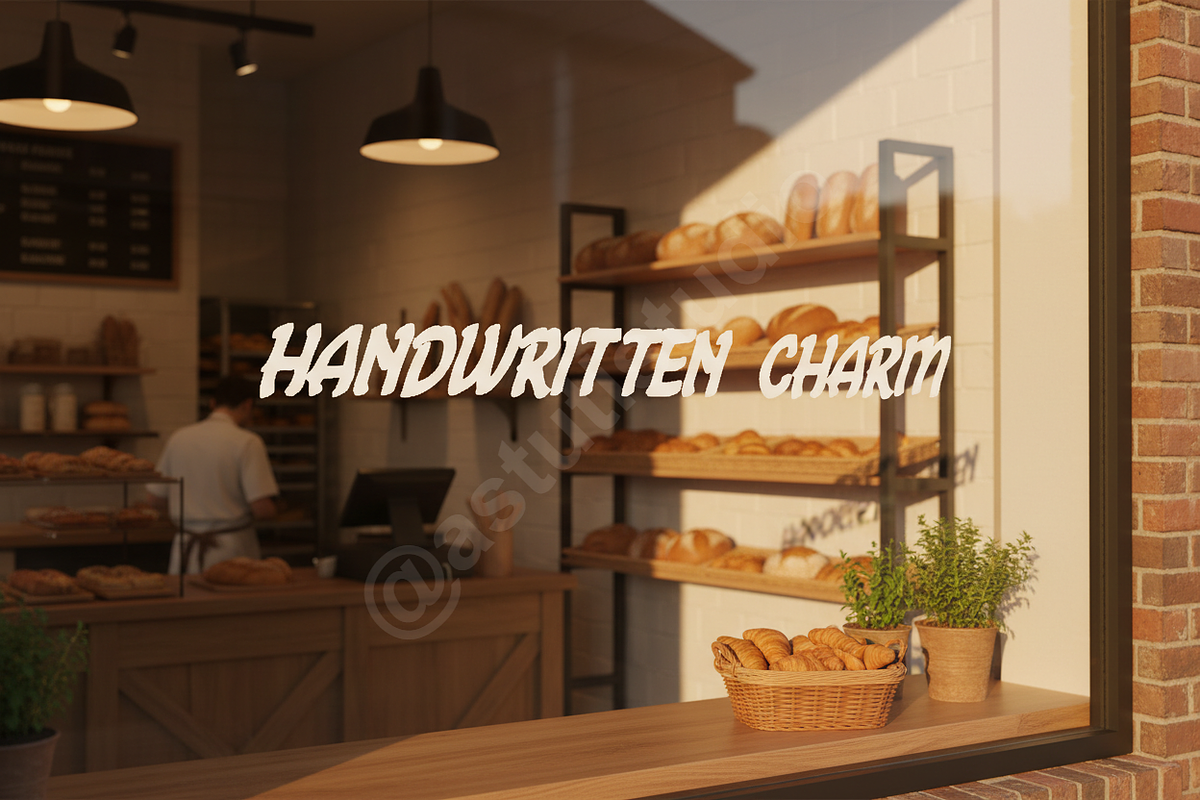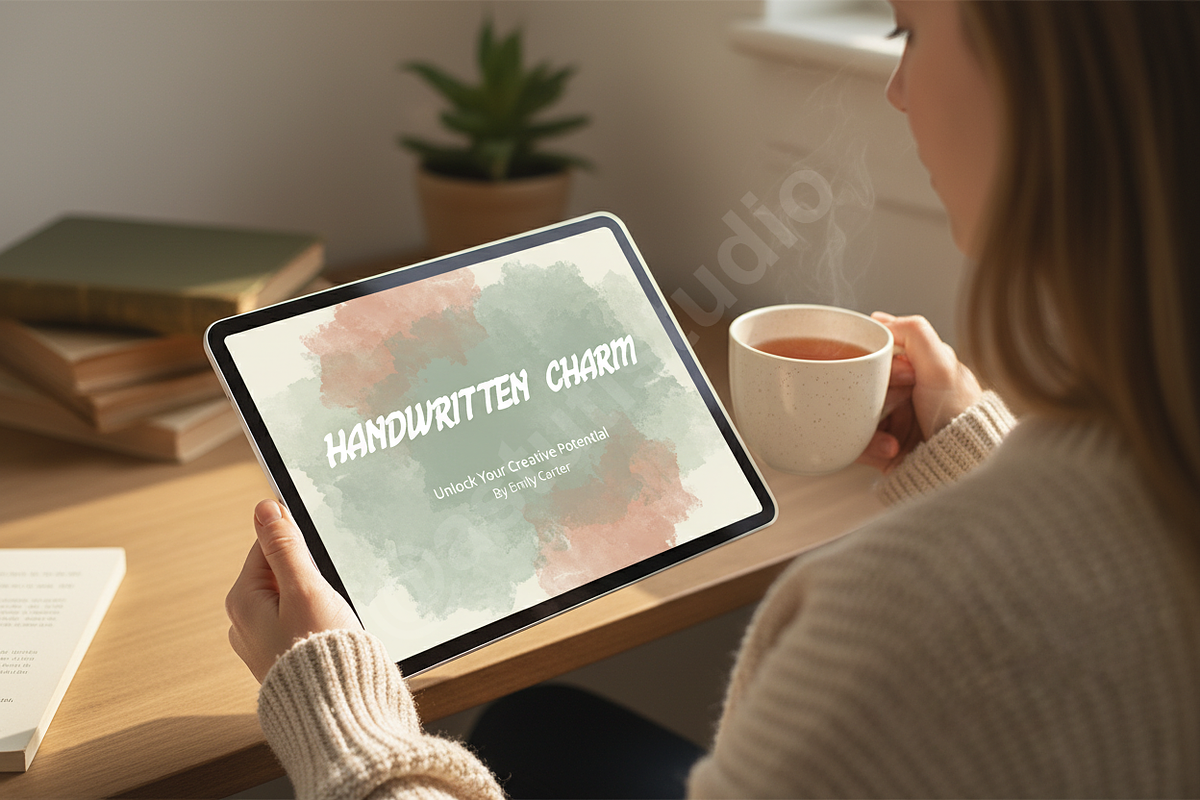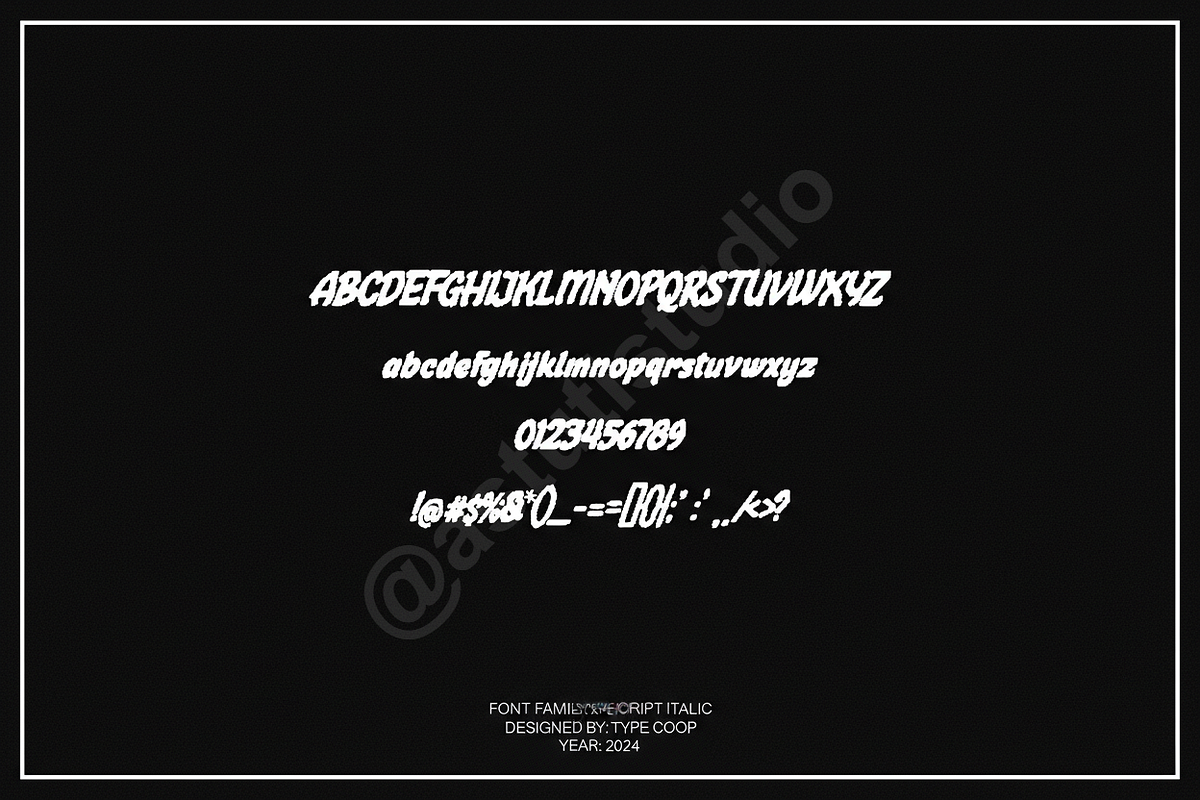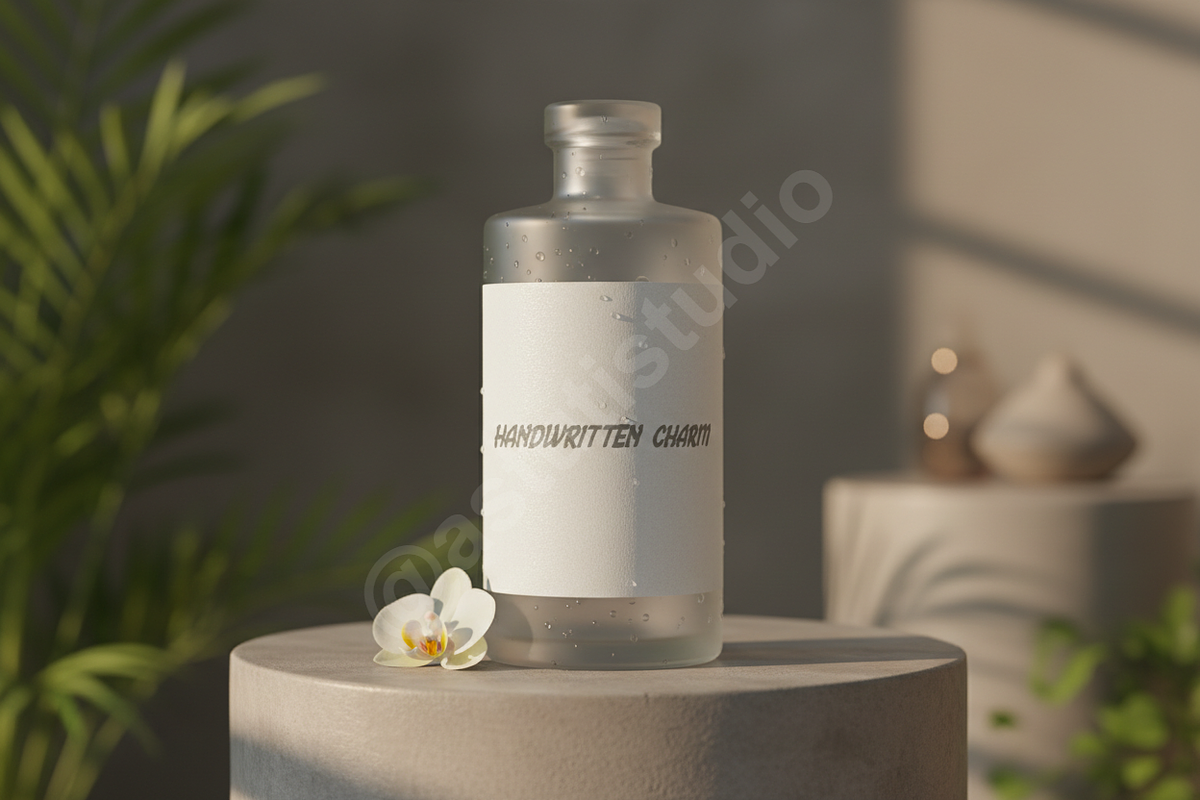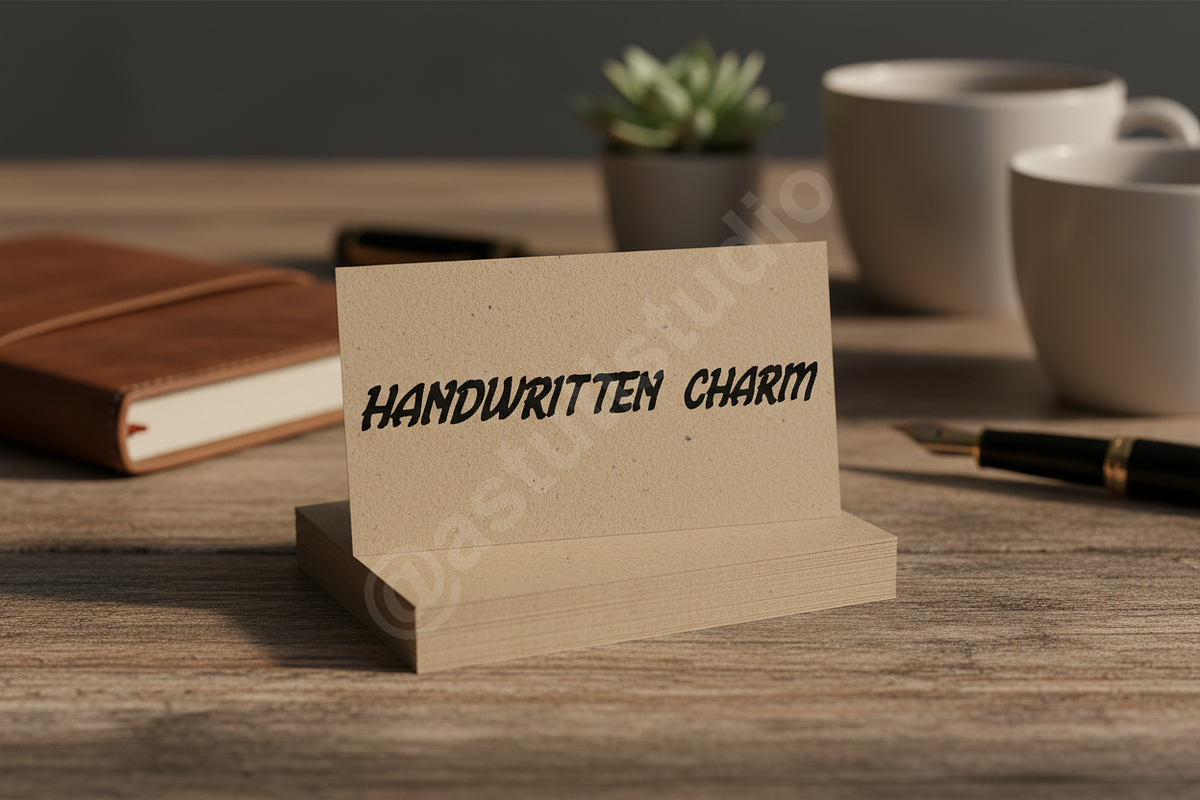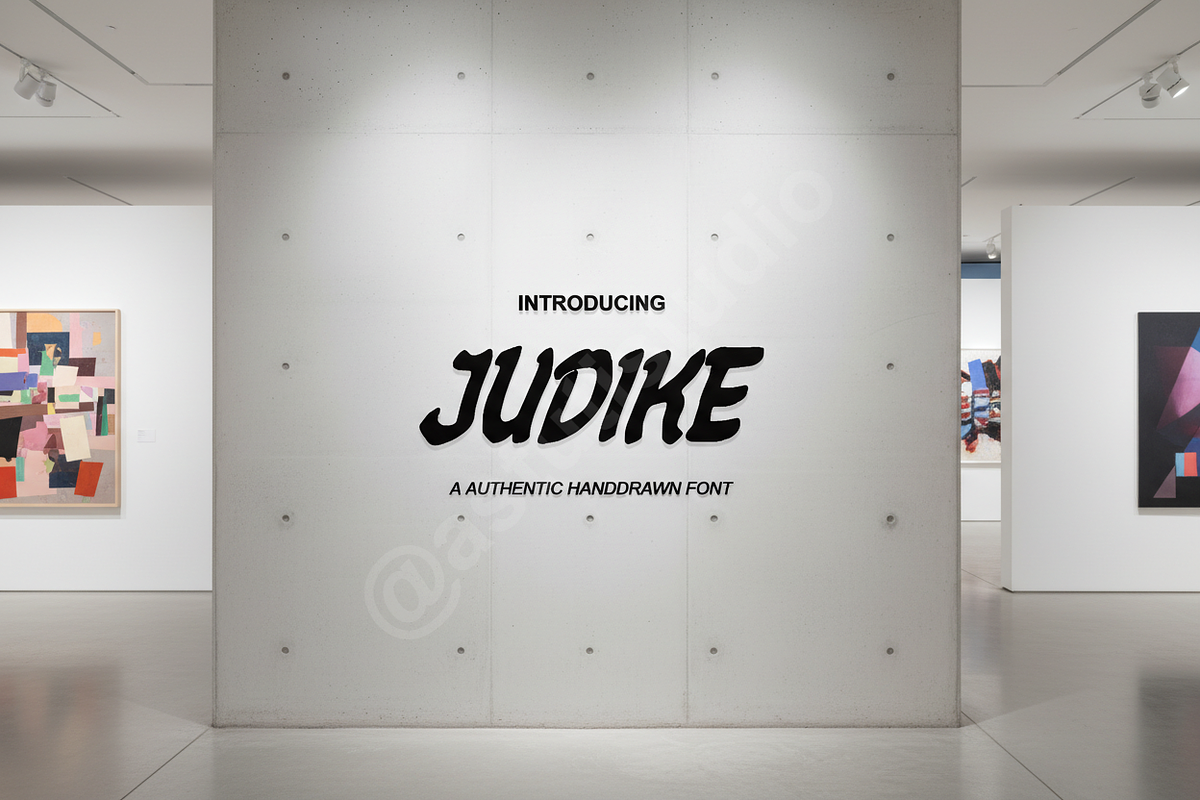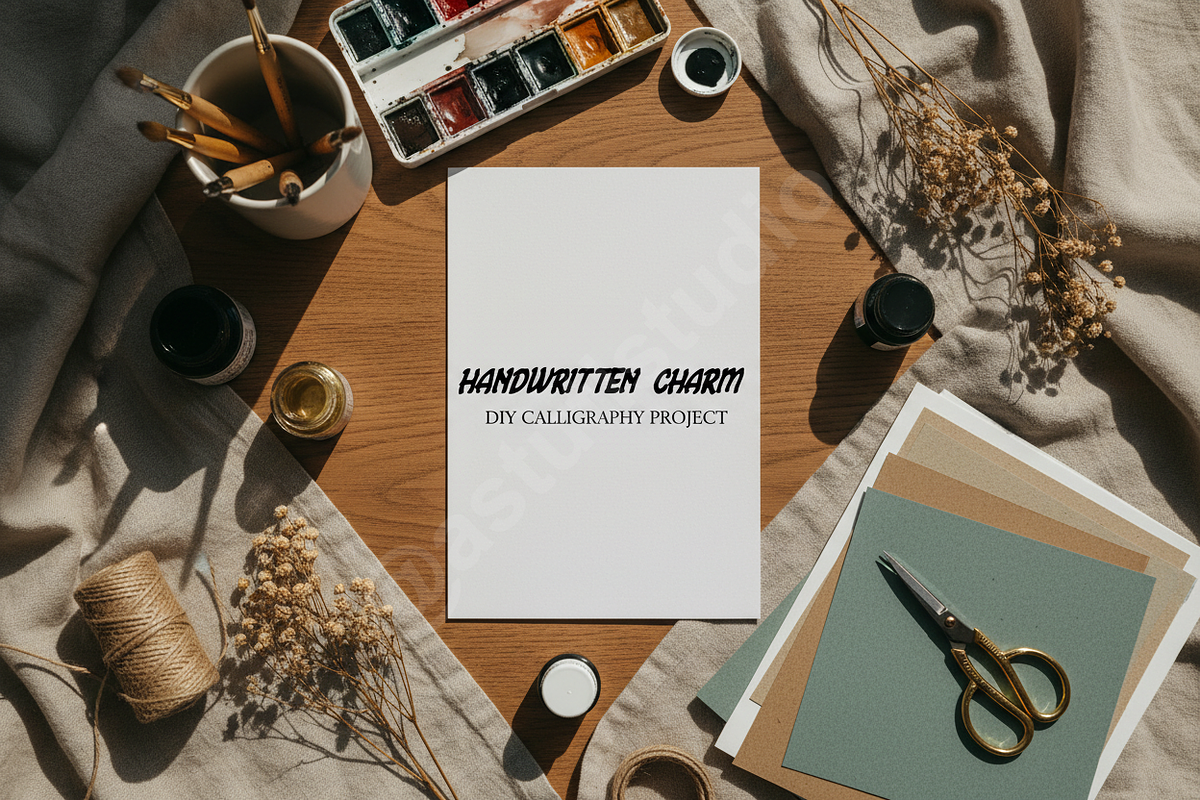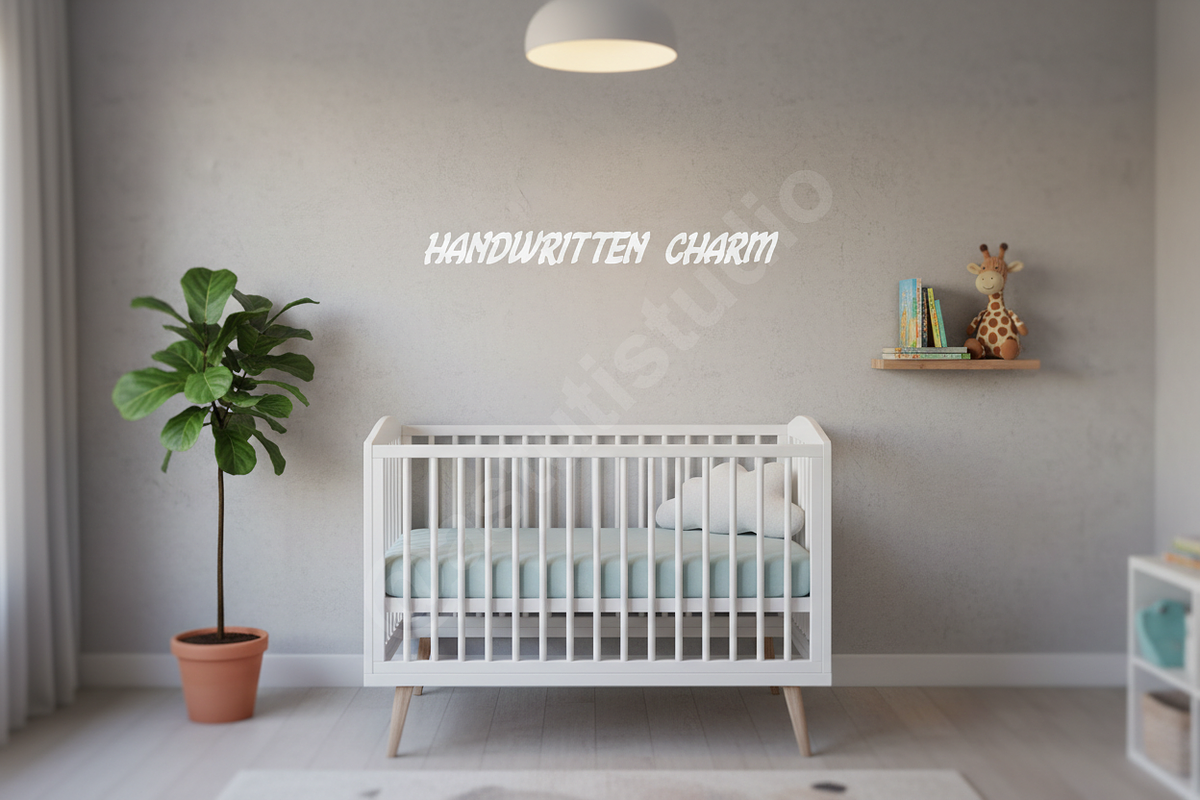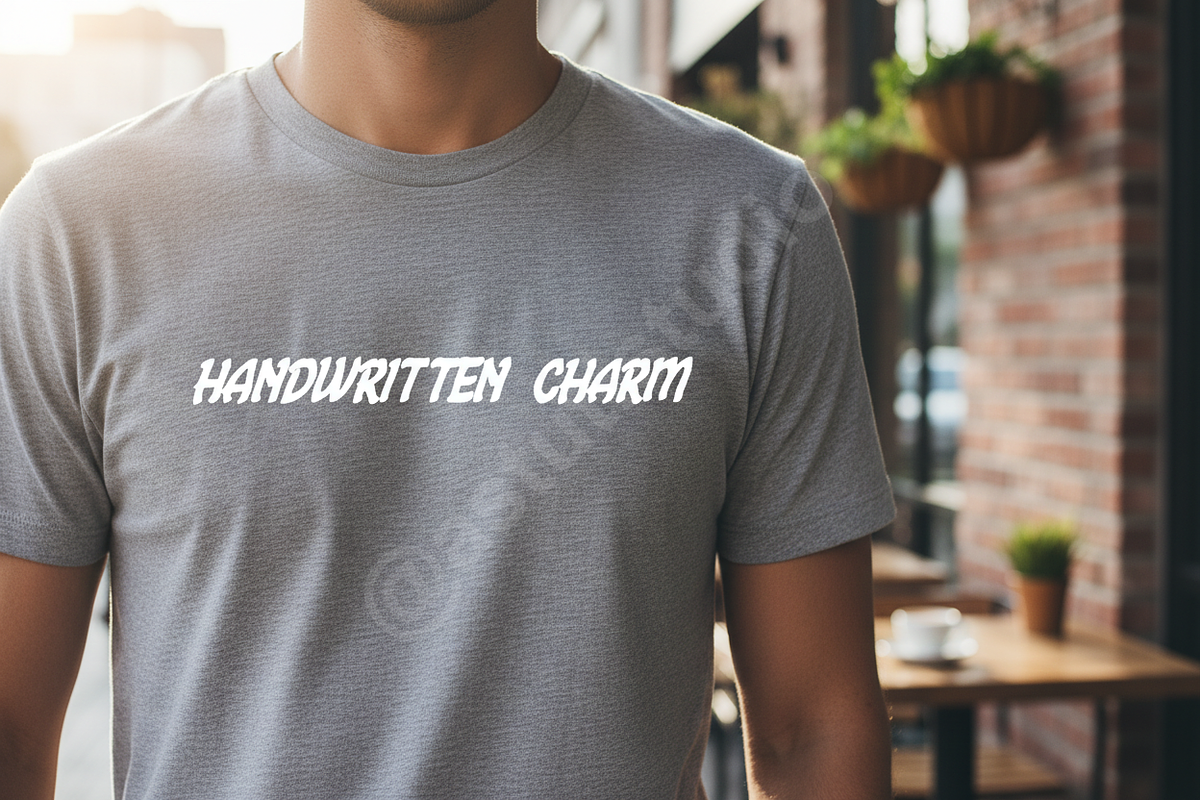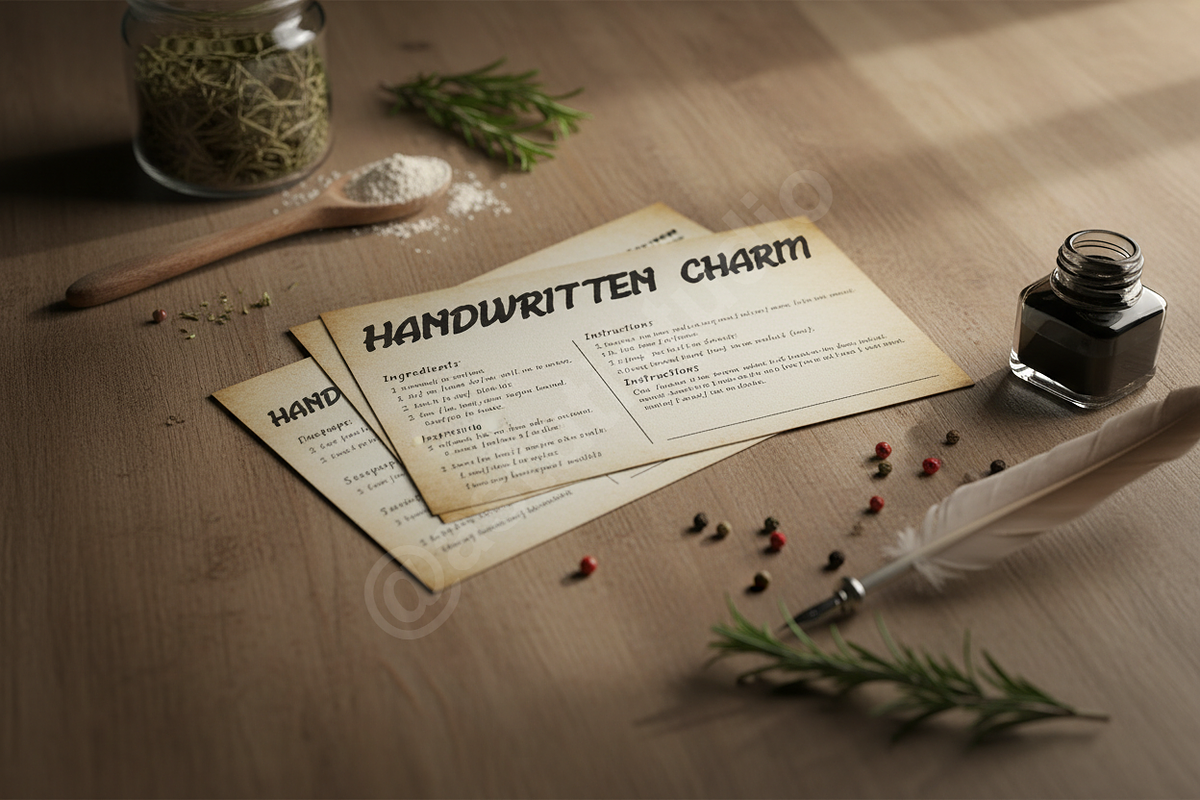
Judike - Elegant Modern Serif Typefa
Introduction Judike is a sophisticated serif typeface meticulously crafted for high-end aesthetics and timeless design. With its balanced proportions and refined strokes, Judike embodies a sense of quiet luxury, making it an essential tool for designers seeking a premium studio touch. This font is specifically engineered to perform beautifully in luxury branding, editorial layouts, and elevated social media content.
- Sophisticated Serif Character Design
- Extensive Collection of Ligatures and Alternates
- Full Multilingual Support for global reach
- Precise Kerning and Optical Balance
- High Contrast for a professional, sharp finish